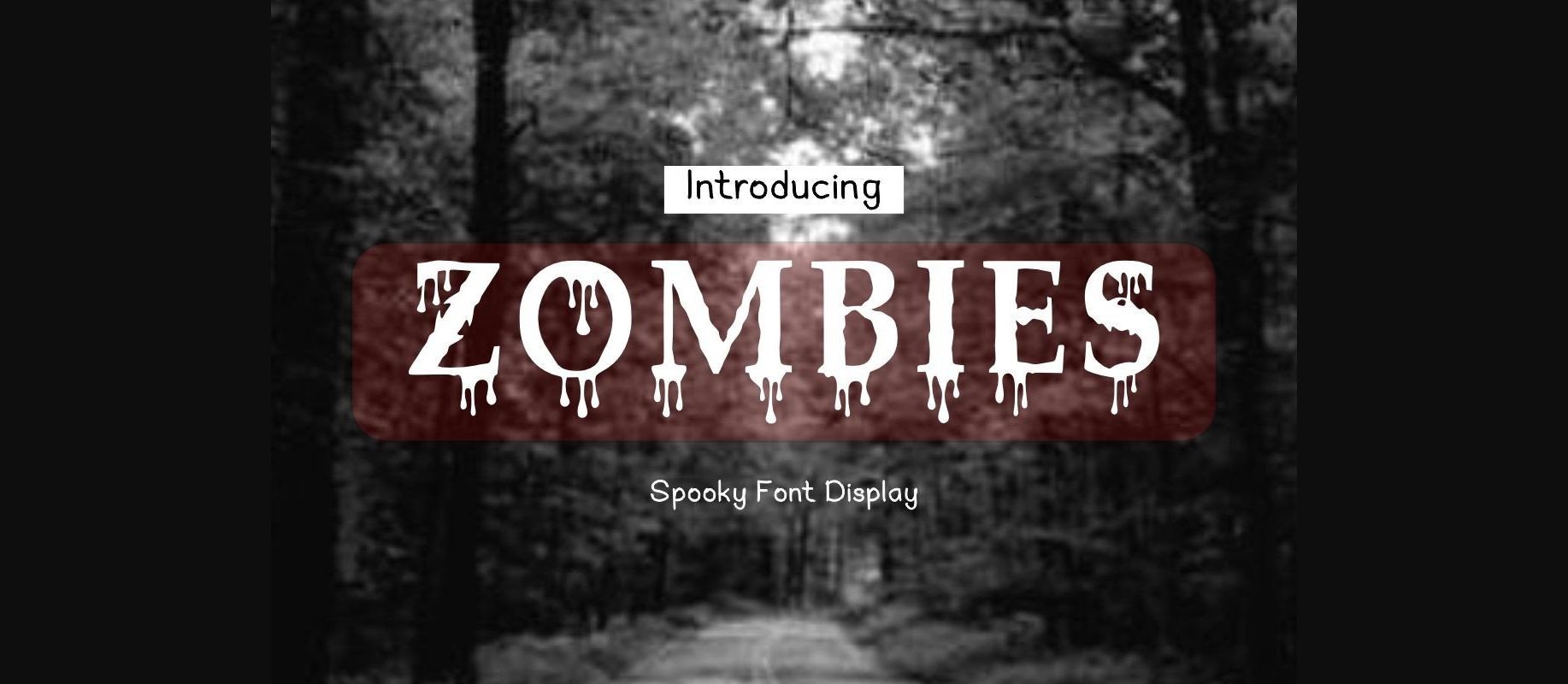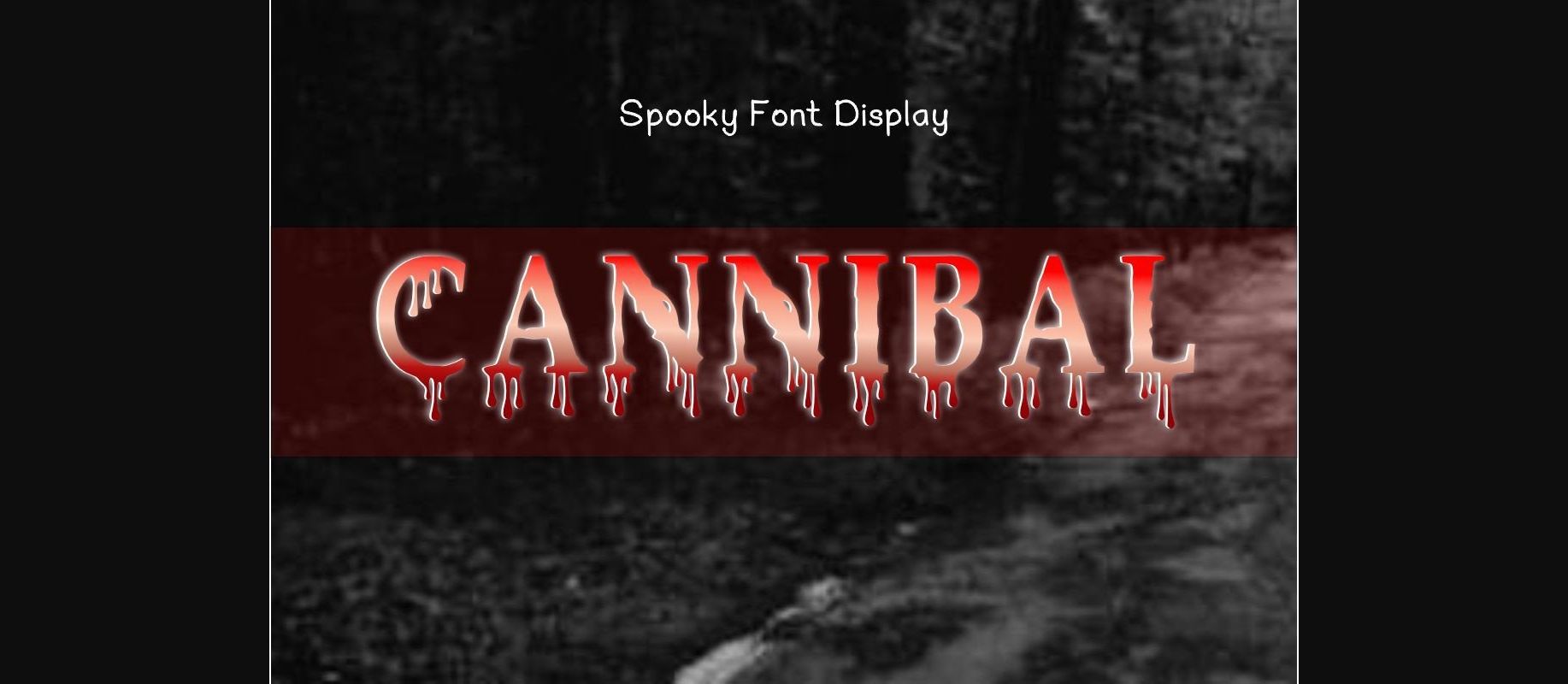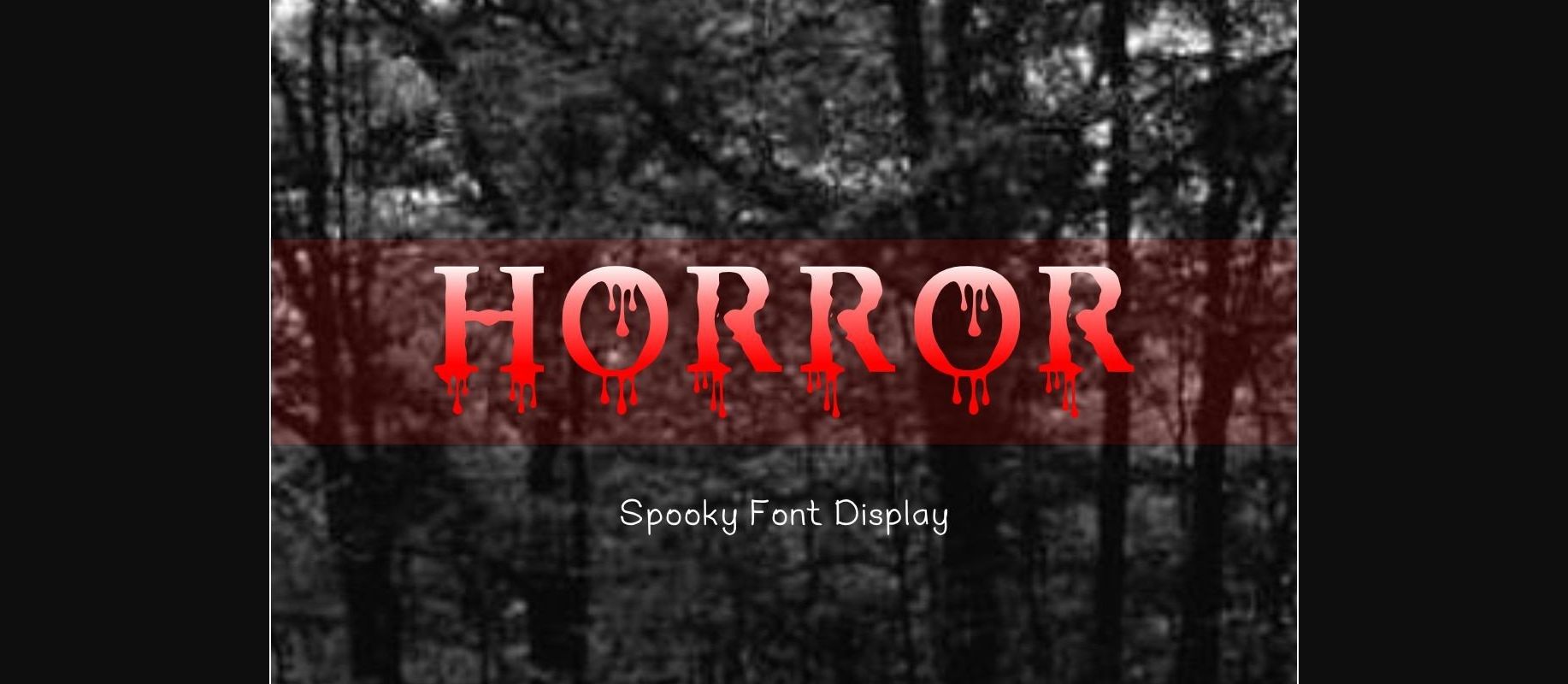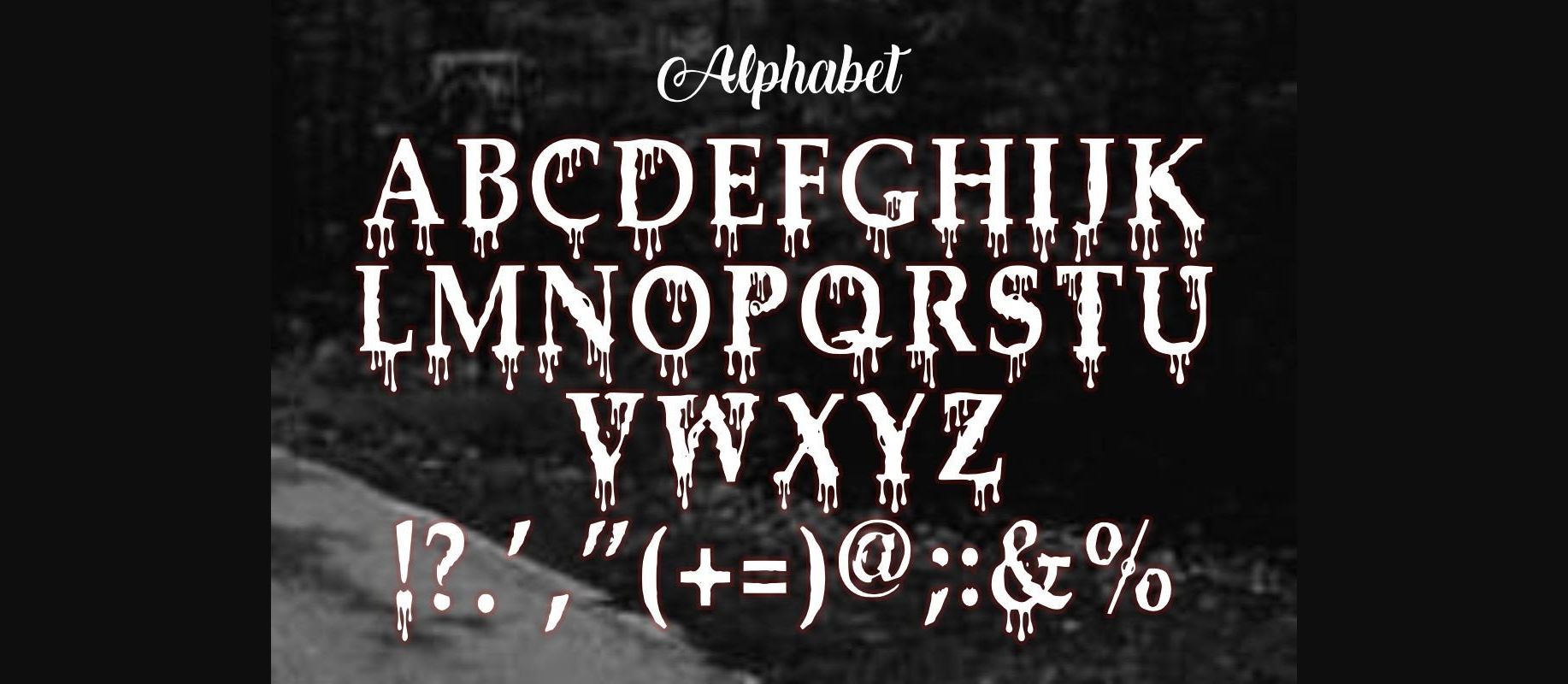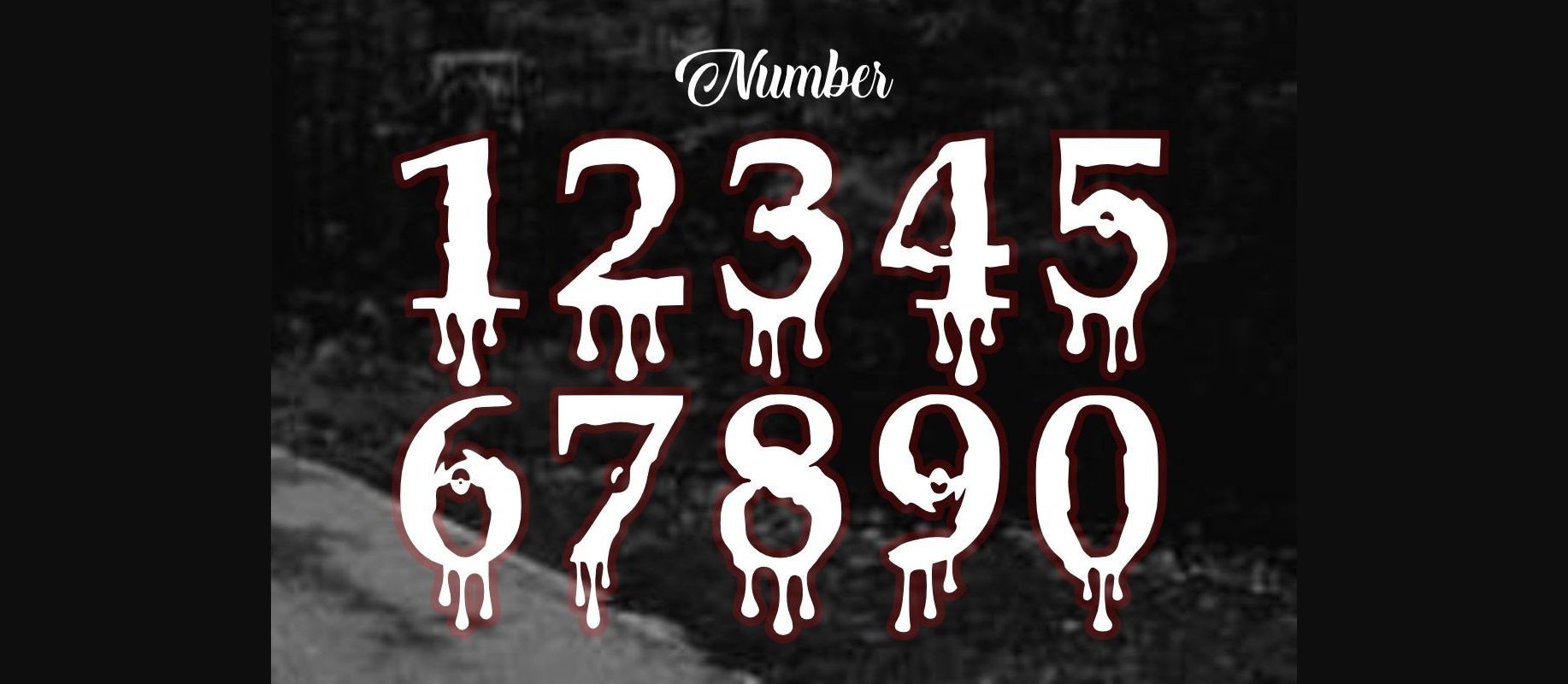
HomeDecorative FontsZombies Font Decorative Fonts Zombies Font FacebookXPinterestWhatsApp 1 of 7 ... Zombies Font Poster 2... Zombies Font Poster 3... Zombies Font Poster 4... Zombies Font Poster 5... Zombies Font Poster 6... Zombies Font Poster 7... About Zombies Font Zombies is a scary and wild decorative font with a spooky look. With a dripping style, it will bring Horror vibes to any project. DOWNLOAD NOW People also explored Simple House Ortisan Signature Junos Ridge Font Worst Laziest Font Christmas Tree Font The Quick Rex Font Sandels Font Raymond Monako Font 299 0 TagsZombiesZombies Font Previous articleFancy FontNext articleBoneka Font LEAVE A REPLY Cancel reply Comment: Please enter your comment! Name:* Please enter your name here Email:* You have entered an incorrect email address! Please enter your email address here Website: Save my name, email, and website in this browser for the next time I comment. Personal Use Free Kinda Sweet Personal Use Free Read more about this font Ailand Personal Use Free Read more about this font Vivacious Personal Use Free Read more about this font Hearted Personal Use Free Read more about this font BLOG Best Fonts for T-Shirt Design – Top 2025 Picks In 2025, t-shirt design has become more than just fashion—it's a form of self-expression. Whether you're... Exploring Font Trends Using Fonts in Digital Marketing: Tips to Strengthen Your Brand Identity Transform Your Website: Elevate Your Typography with 7 Best Web Font Generators